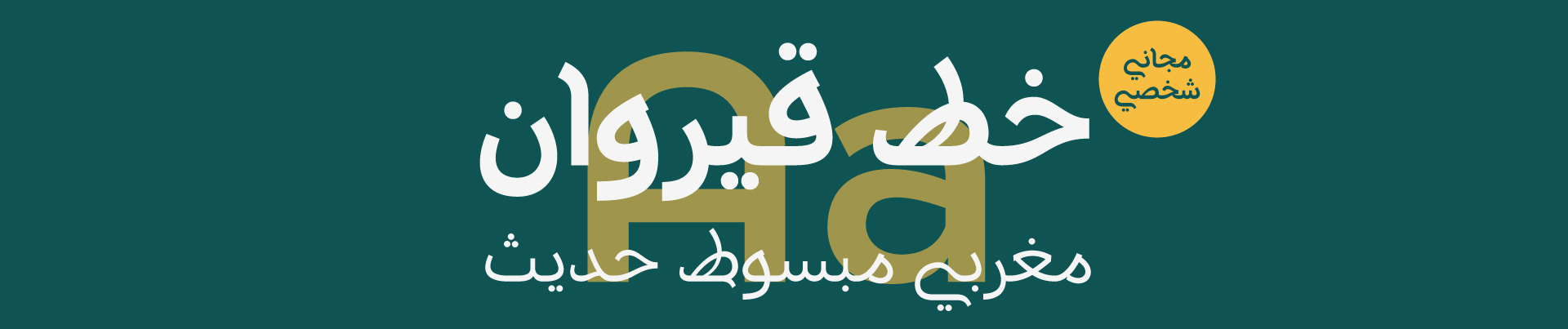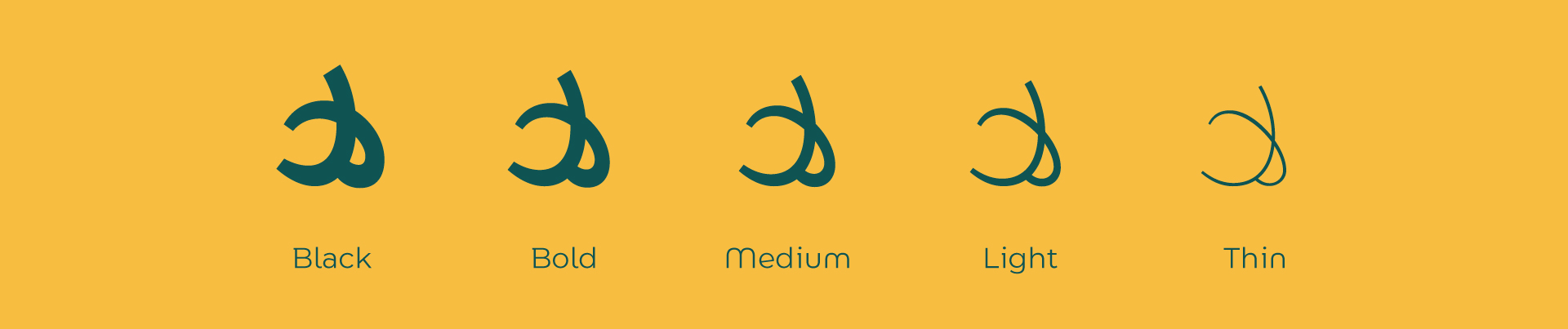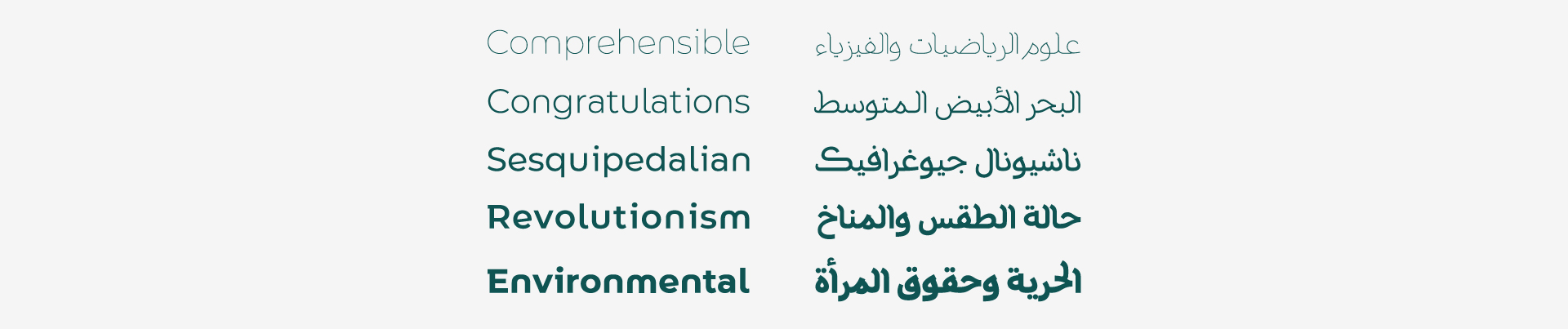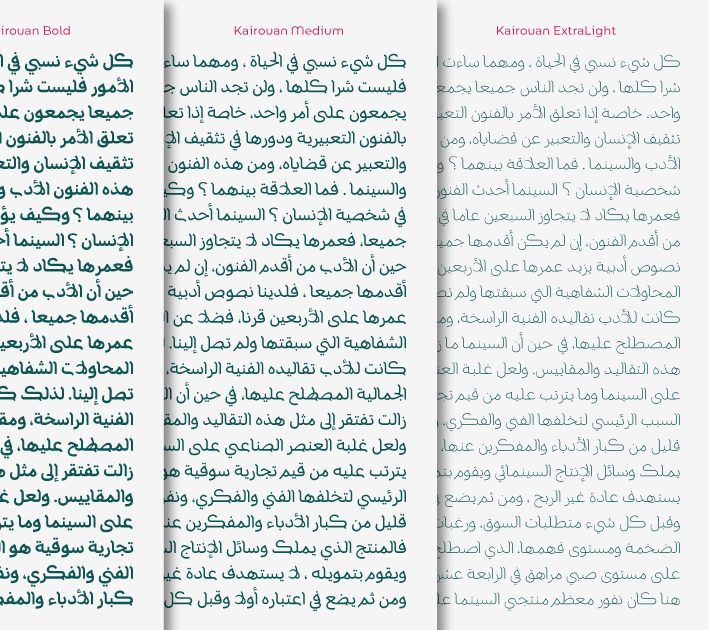
About Kairouan Text Font
Introduction:
Kairouan text font inspired by Maghribe Script with consistent thickness.
Weights and Supported Languages:
It has 9 weights and supports Arabic and Latin
Usage:
It is suitable for texts, headlines, and social media posters.
Designing & Developing:
TSfonts Type Foundry
Tarek Alsawwa